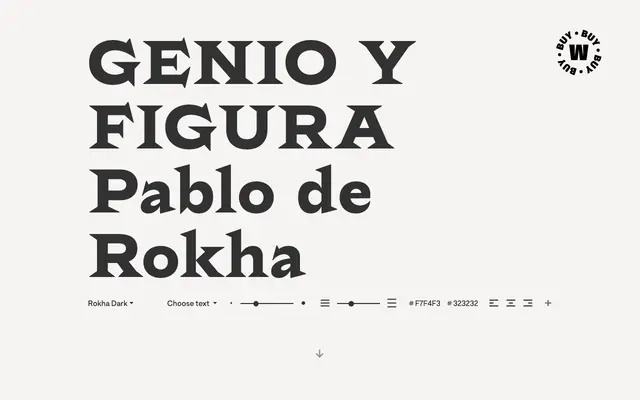
Rokha
W Type Foundry · Patricio Truenos Gaspar Muñoz
A wedge-serif display face with sharply exaggerated serifs drawn from Copperplate Gothic, designed to read like carved stone across five weights.
Designed by Patricio Truenos Gaspar Muñoz, Rokha takes Goudy's Copperplate Gothic as its starting point and pushes the wedge serifs into something more aggressive and sculptural. Ten styles span five weights from Light to Dark, each paired with an oblique, and the inclusion of both upper and lowercase broadens its range beyond strictly titling use. Best deployed in headlines, posters and large-scale branding where its pointed serifs and commanding weight can do their work.
Explicitly described as a wedge-serif, with sharp, exaggerated serifs inspired by Goudy's Copperplate Gothic, giving it a lapidary, carved-stone character suited to display use.